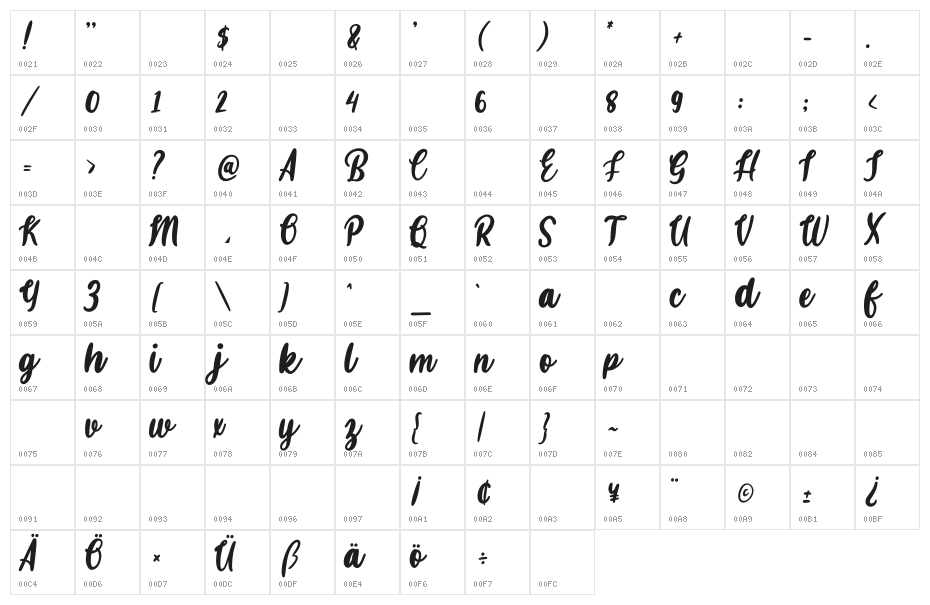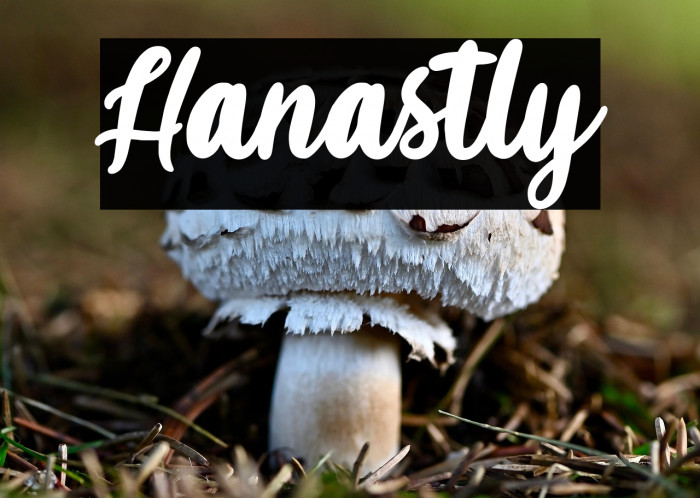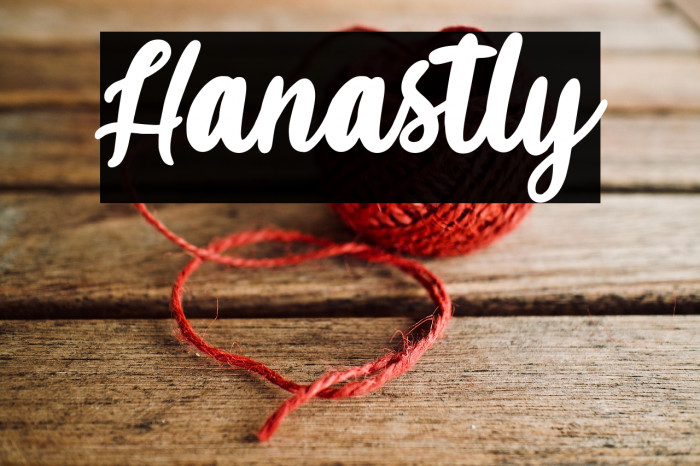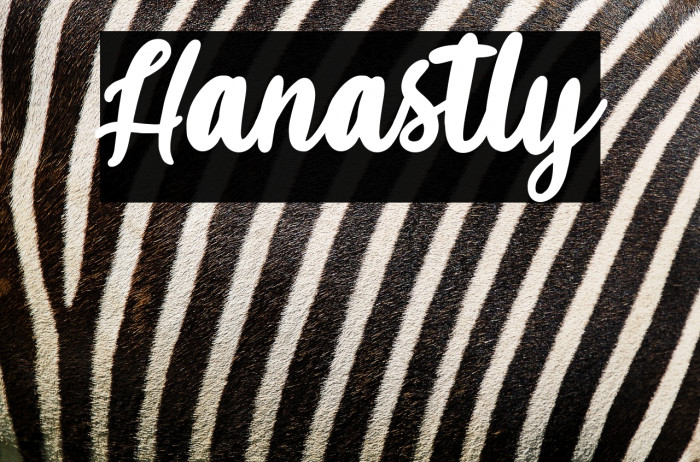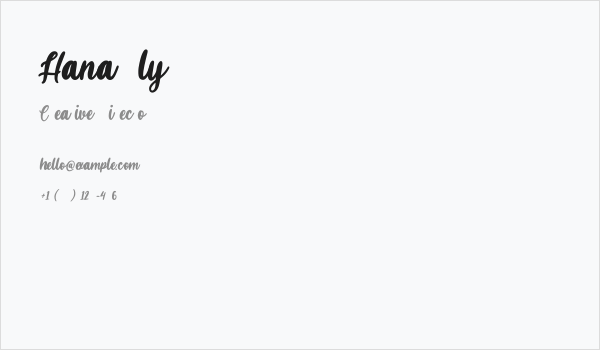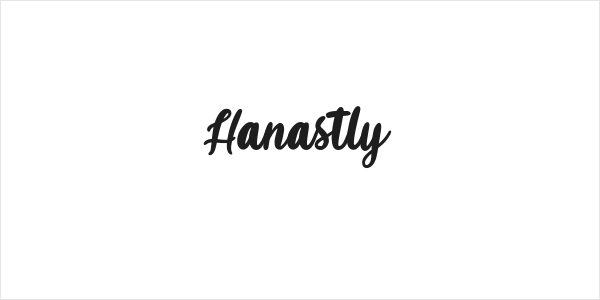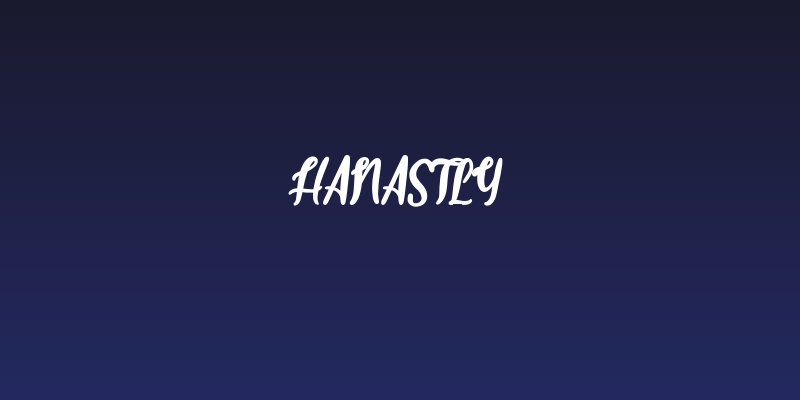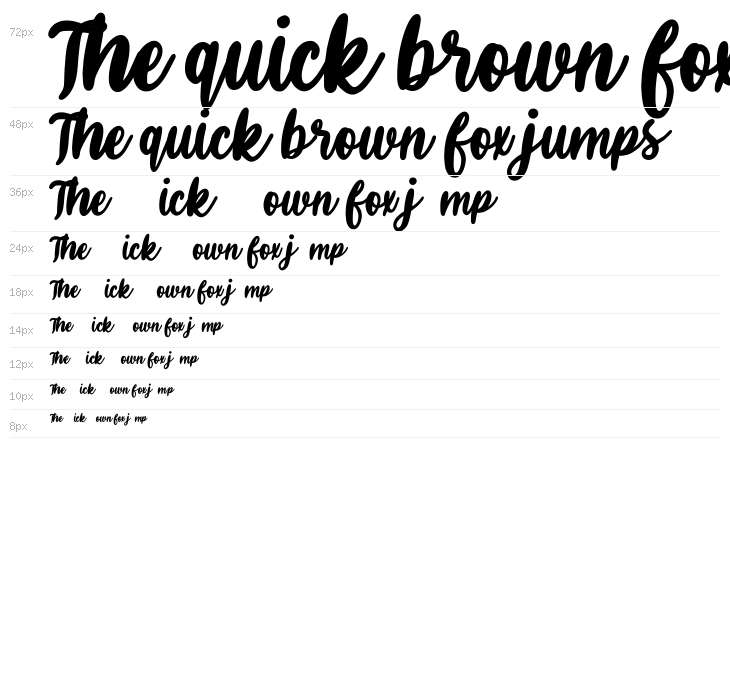
Hanastly Font
Hanastly Description
This font features a bold, flowing script style with a modern and elegant touch. The characters are interconnected, giving a sense of continuity and fluidity. The uppercase letters are tall and graceful, while the lowercase letters maintain a consistent, rounded form. The numbers and special characters complement the overall style, maintaining the same bold and cursive characteristics. The font's design is highly legible despite its decorative nature, making it suitable for various creative applications.
| Proposed Projects | Ideal for wedding invitations, branding, logo design, and greeting cards. |